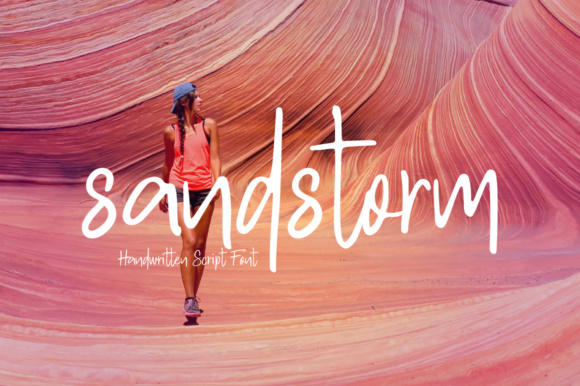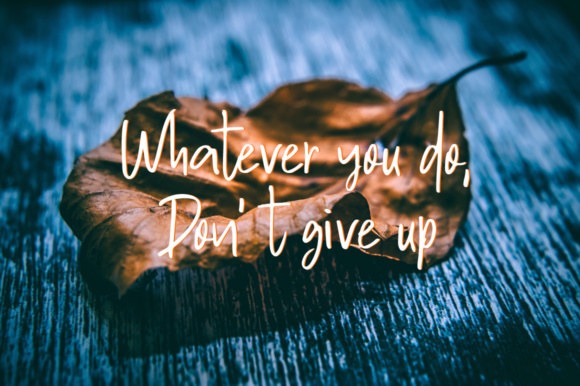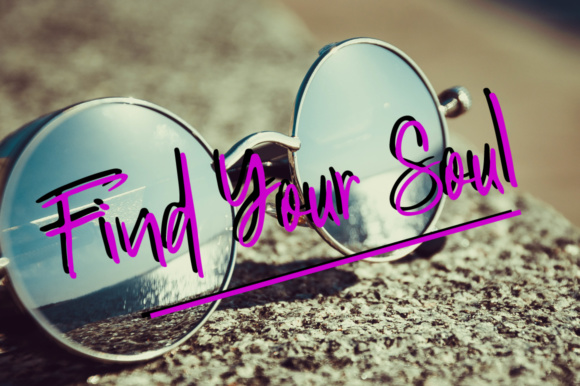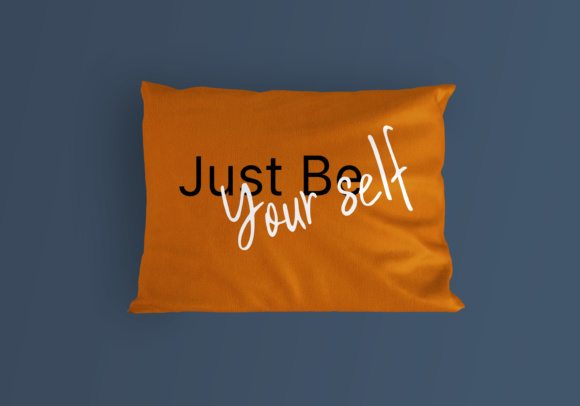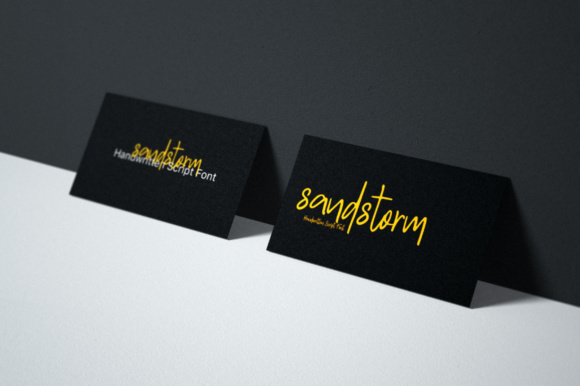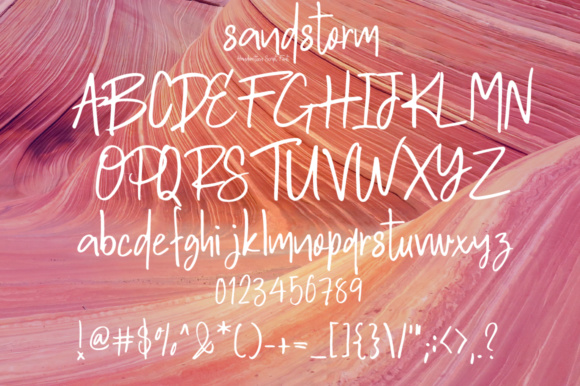
Sandstrom Font
About Sandstrom Font
Sandstrom is a stunning, handwritten script font.
Because of it’s smooth soft exterior, it’s perfect for a lot of if different type of designs such as wedding invites, thank you cards, or business-casual designs.